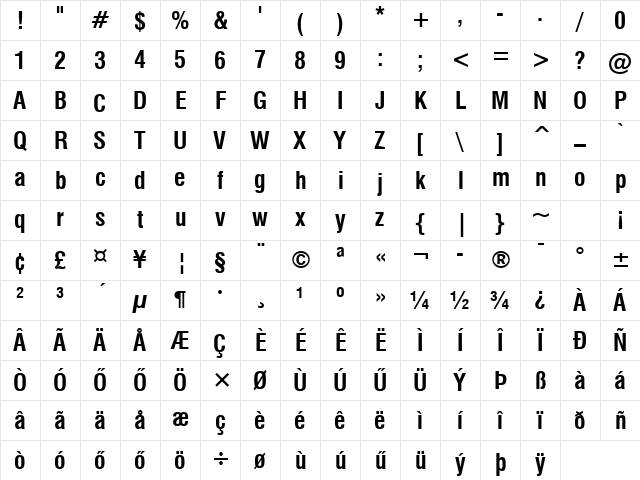
Hu_Swiss 733 Cn WS Bold
Design Context for Hu_Swiss 733 Cn WS
Hu_Swiss 733 Cn WS is a composed and adaptable typeface that performs quietly and consistently across a wide range of design contexts. Its bold stroke weight gives it real presence on the page.